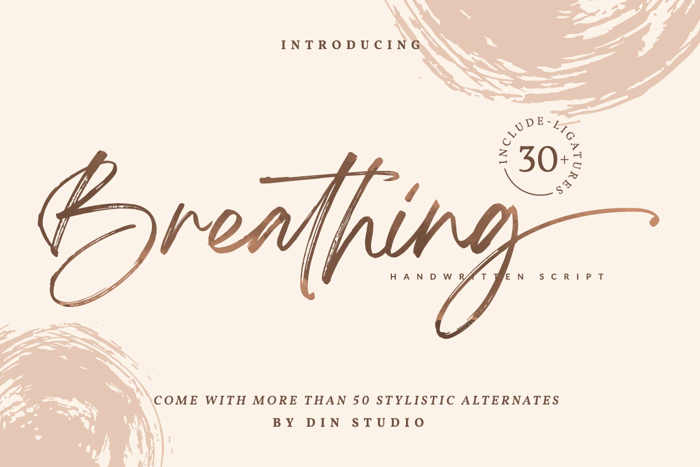
Breathing Font
Breathing, a beautiful brush signature font, is made for any professional project branding, such as signature logos, watermarks, wedding invitations, branding, promotions, product packaging, etc. Every letter has a unique and beautiful touch. This font comes in a rough and solid version.
Features include:
• Ligatures
• Stylistic Sets
• Multilingual Supports
• PUA Encoded
• Numerals and Punctuations